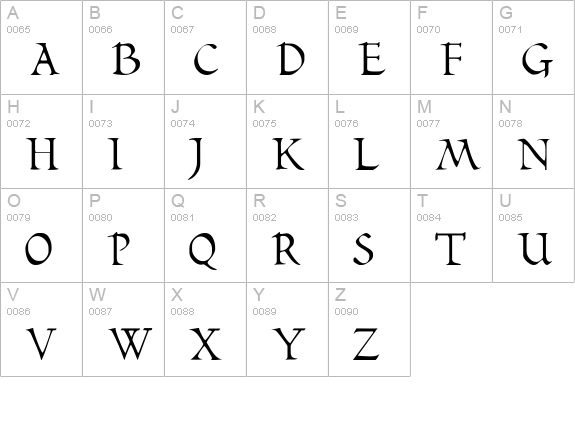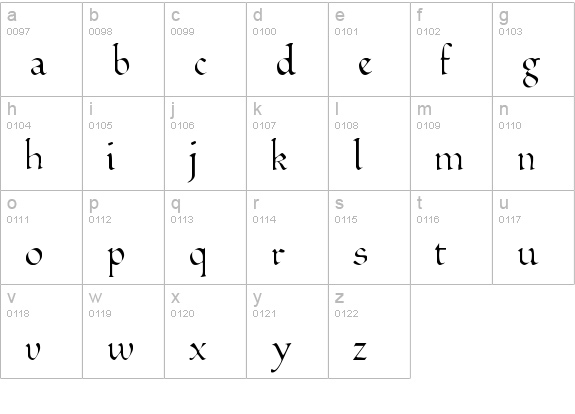
BilboDisplay Font Details
BilboDisplay font exudes elegance and sophistication with its intricate details and graceful curves. This font is perfect for adding a touch of charm to any design project, whether it's invitations, packaging, or branding materials. Its classic yet modern aesthetic makes it versatile and suitable for various purposes. What's even better is that BilboDisplay font is available for free download at FontsMarket.com! Now you can enhance your projects with this beautiful font without any cost. Don't miss out on the opportunity to elevate your designs with BilboDisplay font's unique style and character. Download it today and let your creativity shine!